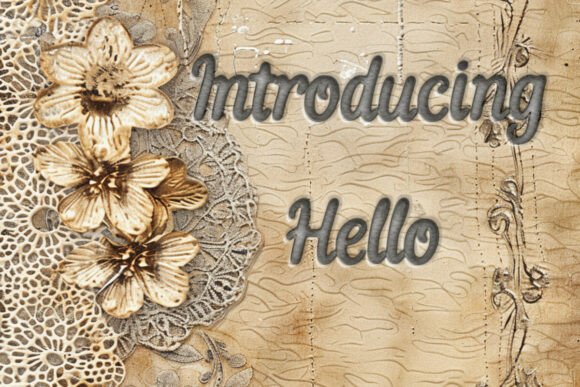
Introducing Hello Font: The Ultimate Design Essential for Creative Projects
In the world of design, typography plays a crucial role in conveying messages, expressing creativity, and building brand identities. For designers, crafters, and DIY enthusiasts, finding the perfect font can make all the difference in elevating a project from ordinary to extraordinary. This is where Hello Font comes in – a stylish, versatile, and expressive typeface designed to breathe personality into every corner of your creative world.
A Standout Choice for Various Design Applications
Hello Font is more than just a typeface; it’s a design essential that can transform your projects with its distinctive charm. Whether you’re working on T-shirts, stickers, magazines, SVG files, greeting cards, or social media designs, this font is sure to make a lasting impression. Its unique style and flair make it an excellent choice for designers and crafters looking to add a memorable and edgy touch to their brand’s identity.
Elevate Your Apparel with Hello Font on T-Shirts
When it comes to designing logos and graphics for T-shirts, Hello Font shines with its stylish and eye-catching appearance. Its distinctive charm enhances the overall aesthetic of the design, making it perfect for creating eye-catching apparel that stands out from the crowd. Whether you’re a designer looking to create custom merchandise or a crafter making DIY T-shirts, Hello Font is an excellent choice.
Add an Edgy Touch to Your Stickers with Hello Font
Stickers are an excellent way to promote your brand, product, or service, and Hello Font can help you make a lasting impression. This font adds a memorable and edgy touch to your stickers, making them stand out from the competition. Whether you’re creating stickers for promotional purposes or personal use, Hello Font is a great choice for designers and crafters looking to add some personality to their designs.
Refine Your Publishing with Hello Font in Magazines
In the world of publishing, typography plays a crucial role in creating visually appealing layouts. Hello Font brings a refined aesthetic to magazines, transforming layouts into visual experiences that engage and captivate readers. Whether you’re a designer working on a magazine project or a publisher looking to elevate your brand’s visual identity, Hello Font is an excellent choice.
Bring Clarity and Style to Your SVG Files with Hello Font
SVG files are a popular choice for designers and crafters, and Hello Font can help you take your designs to the next level. This font brings clarity and style to your SVG files, making them perfect for various applications, from cutting files to graphic designs.
Add a Professional Polish to Your Greeting Cards with Hello Font
Greeting cards are a thoughtful way to connect with friends, family, and loved ones, and Hello Font can help you create professional-looking cards that stand out from the crowd. This font adds a touch of elegance and sophistication to your designs, making it perfect for various occasions, from birthdays to weddings.
Unleash Your Creativity with Hello Font on Cricut
For Cricut enthusiasts, Hello Font is a game-changer. This font turns ordinary projects into unforgettable masterpieces, allowing you to create custom designs, signs, and decorations with ease. Whether you’re a seasoned Cricut user or just starting out, Hello Font is an excellent addition to your design toolkit.
Make an Impact with Hello Font on Posters
Posters are an effective way to communicate messages, promote events, and showcase products, and Hello Font can help you make a lasting impression. This font brings impactful messaging to your posters, making them perfect for various applications, from advertising to marketing.
Signature Style for Social Media Designs with Hello Font
In today’s digital age, social media design is crucial for building brand identities and engaging with audiences. Hello Font can help you create a signature look that’s instantly recognizable across various social media platforms. Whether you’re a designer, marketer, or social media influencer, this font is an excellent choice for creating visually appealing designs that stand out from the crowd.
Hello Font is a versatile, expressive, and full-of-creative-potential typeface that’s sure to become a design essential in your toolkit. Whether you’re a designer, crafter, or DIY enthusiast, this font can help you elevate every corner of your creative world, from T-shirts to social media designs. With its distinctive charm, refined aesthetic, and impact messaging, Hello Font is the perfect choice for anyone looking to add some personality to their designs.